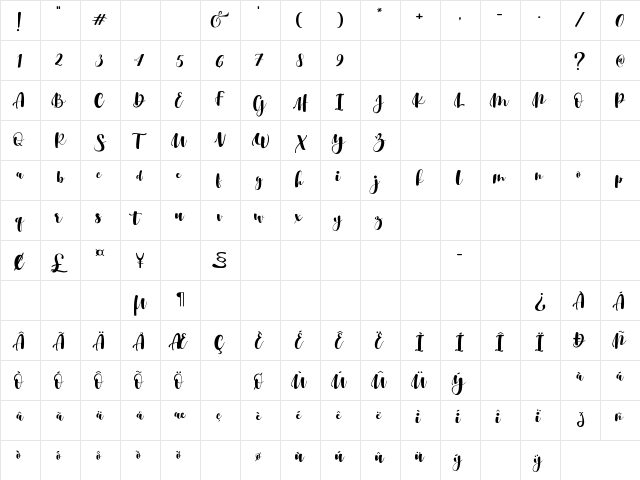
Srikonitta Script Two Regular
Design Context for Srikonitta Script Two Typeface
Srikonitta Script Two brings a calligraphic fluidity to the page — its connecting strokes and expressive curves give it an unmistakably human quality.
Font Pairing: Combine Srikonitta Script Two with a simple geometric sans for maximum contrast — the tension between flowing curves and clean structure is a classic typographic pairing.
Pro Tip: Use Srikonitta Script Two for short runs of text — names, titles, or taglines. Extended body copy in script faces tires the eye quickly.